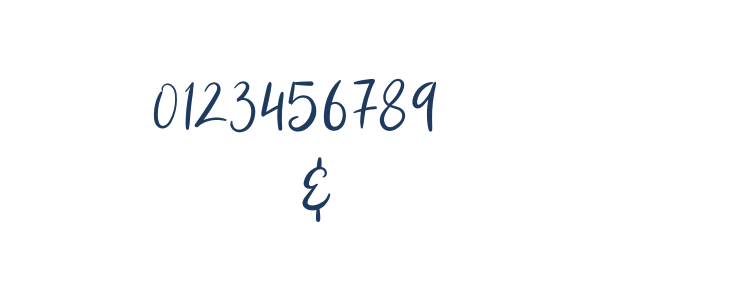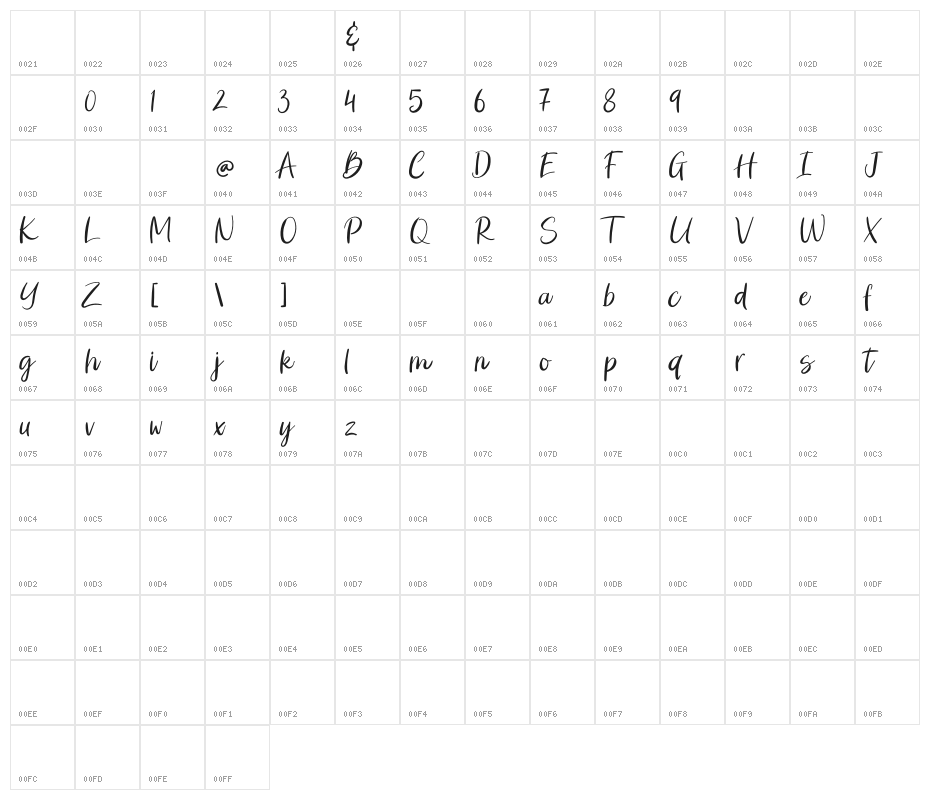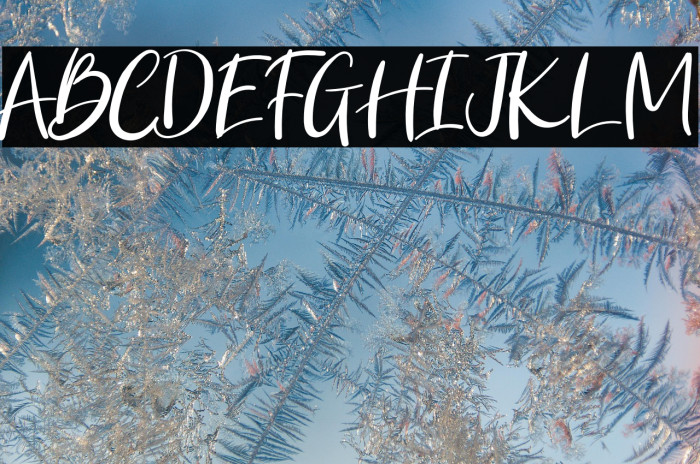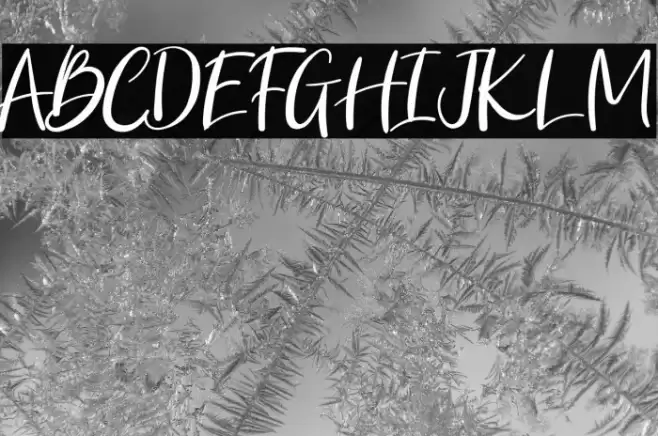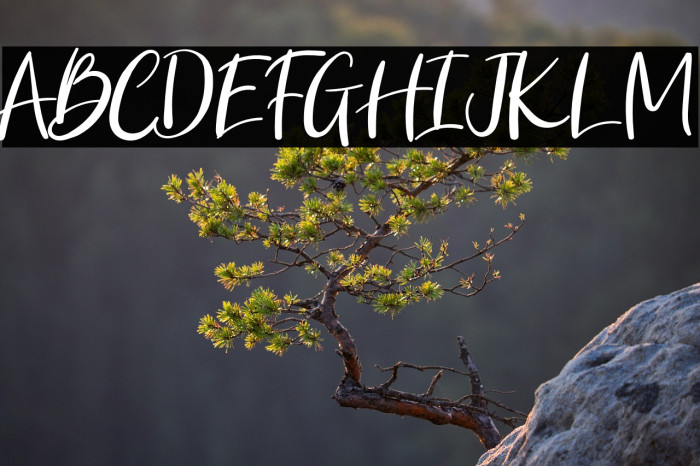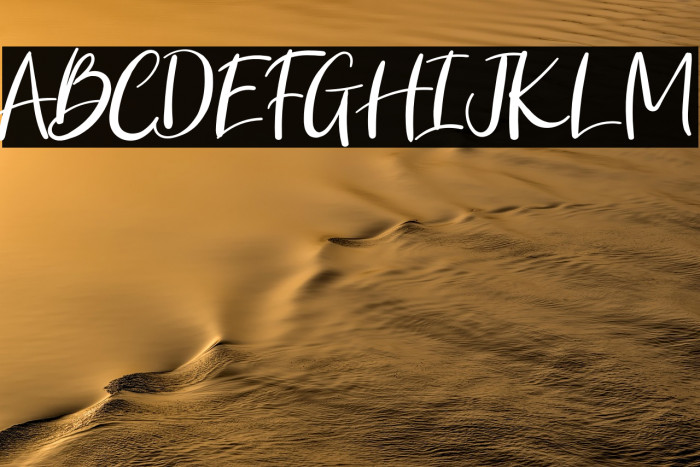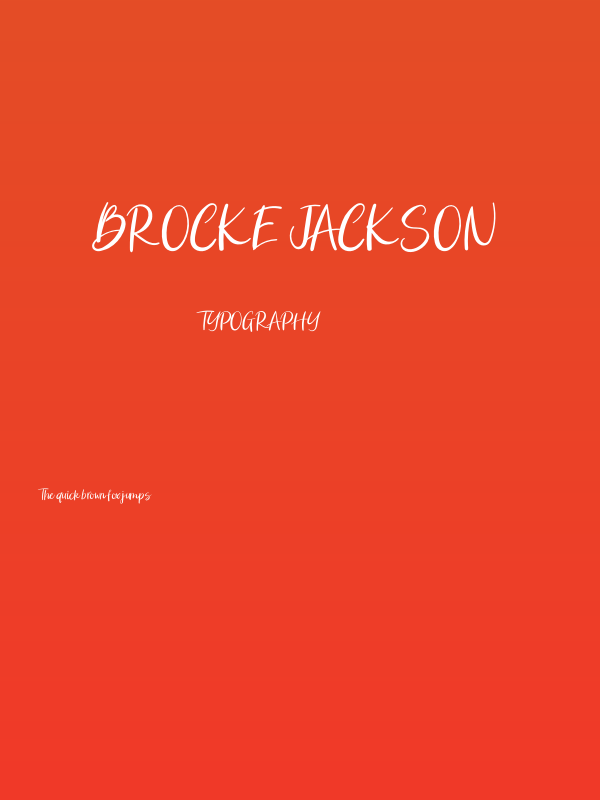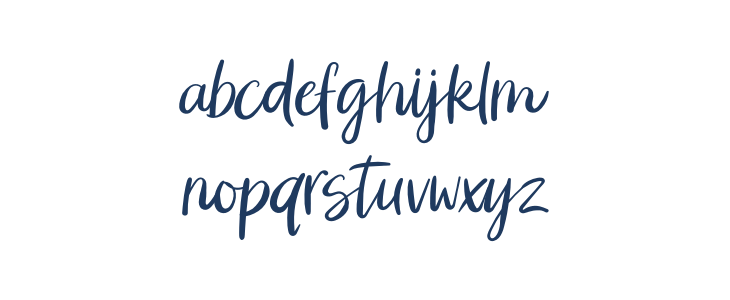
Brocke Jackson Font
Brocke Jackson Description
This font features a lively and dynamic handwritten style, characterized by fluid and sweeping strokes that convey a sense of elegance and spontaneity. The uppercase letters are tall and slightly slanted, with varying stroke widths that add a touch of sophistication. The lowercase letters maintain a consistent flow, with rounded forms and smooth connections that enhance readability. Numbers are well-proportioned, complementing the overall aesthetic. Special characters like the ampersand and dollar sign are crafted with the same attention to detail, ensuring a cohesive look across all glyphs. This font's playful yet refined appearance makes it suitable for a variety of creative applications.